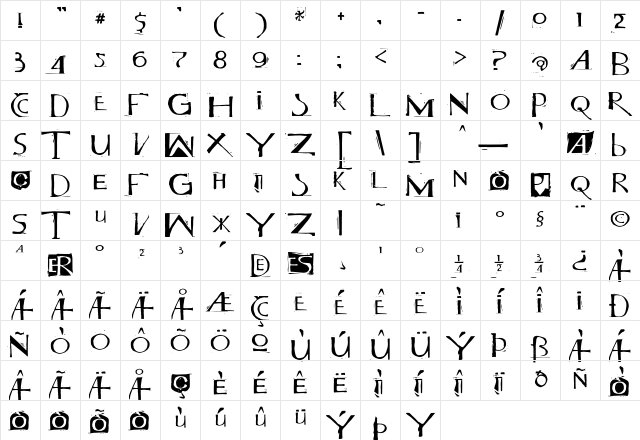
Milagro Regular
Design Context for Milagro
Milagro is a composed and adaptable typeface that performs quietly and consistently across a wide range of design contexts.
Pro Tip: Use Milagro in both headline and body roles to test its range before committing to a single application.